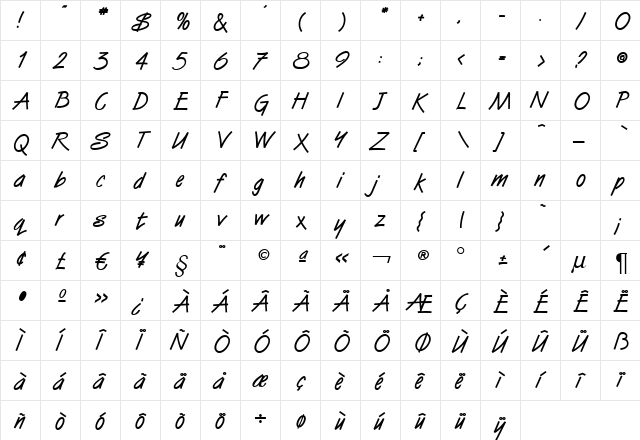
Surfboard Bold
Design Context for Surfboard Typeface
Surfboard is a composed and adaptable typeface that performs quietly and consistently across a wide range of design contexts. Its bold stroke weight gives it real presence on the page.